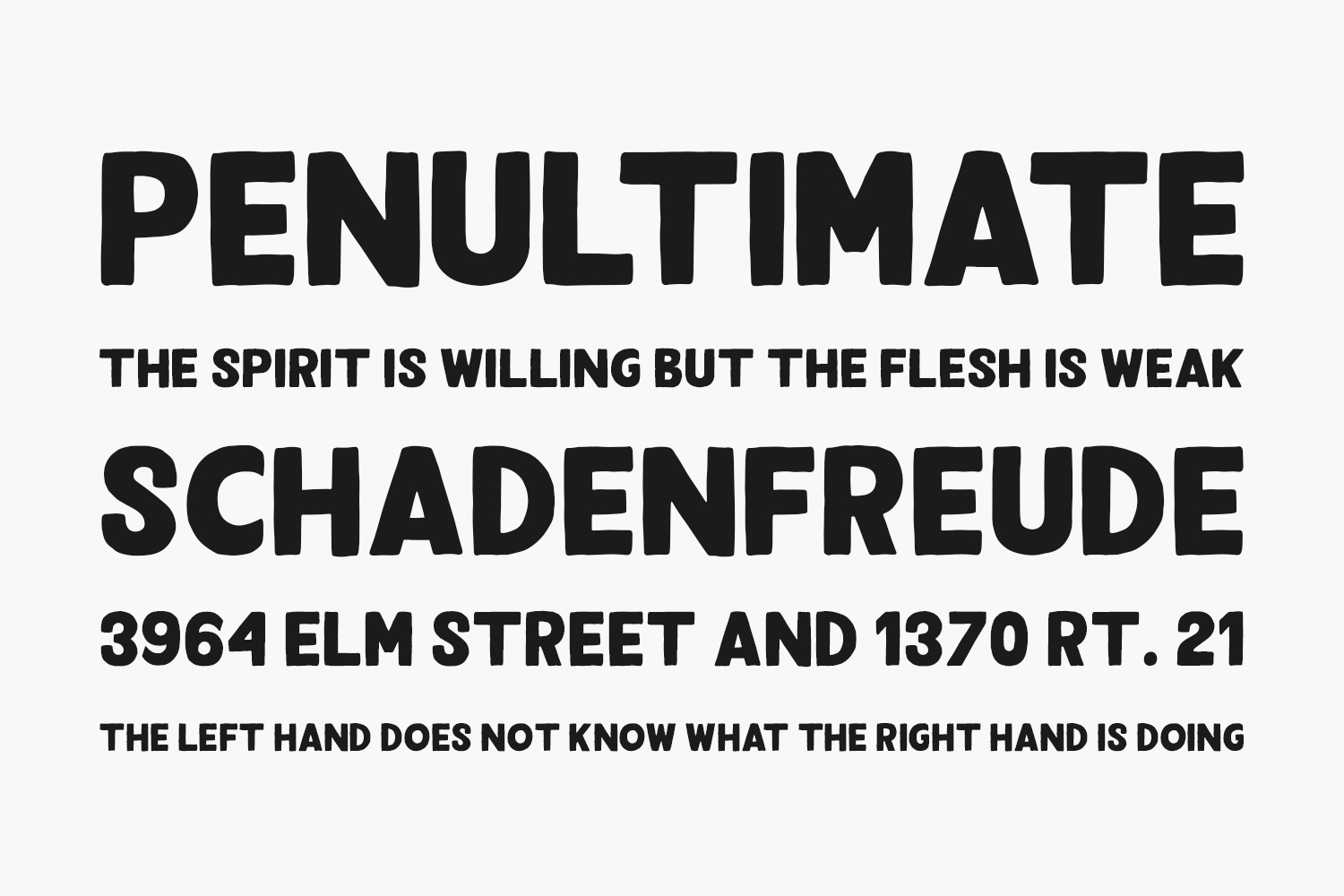
Our new hand-drawn vintage font. Rodetta Free Font Family is an All Caps font that you can use to make a vintage logo for branding, typography design, magazine or book covers, website headers, product packaging, t-shirt design, labels and much more.
Designed by RezaDesign